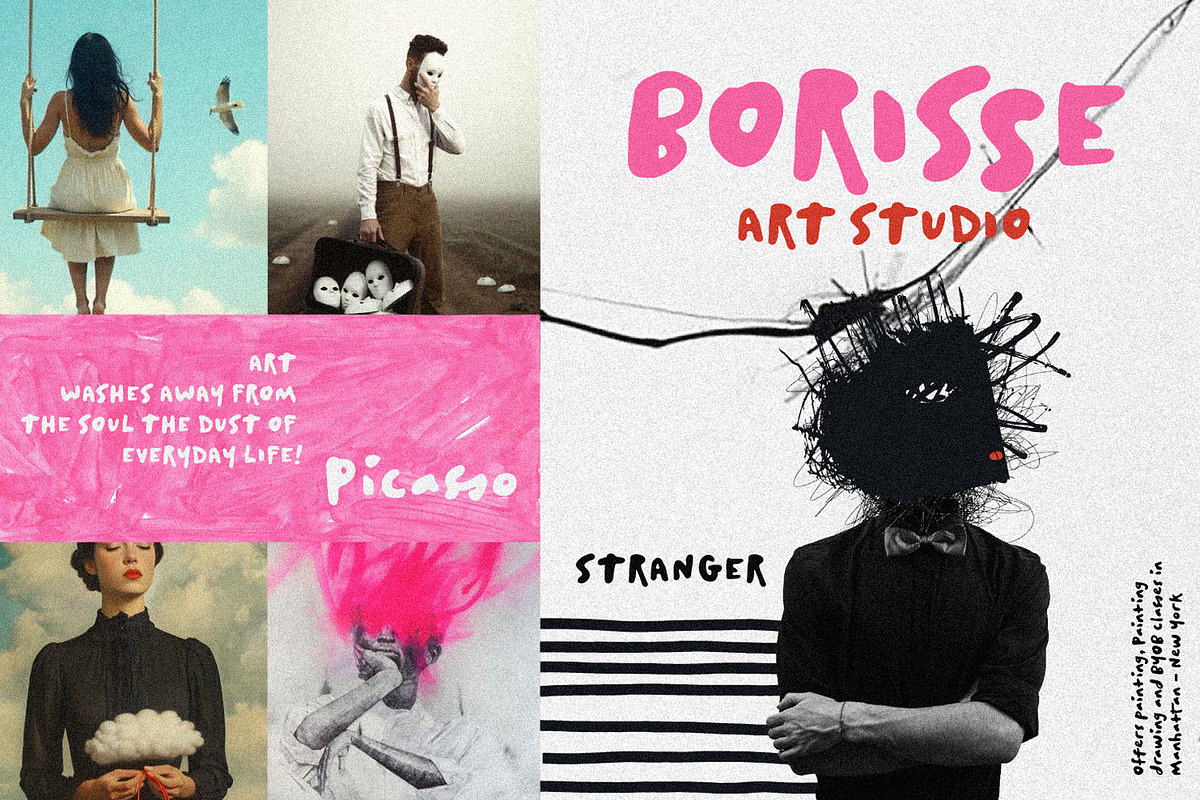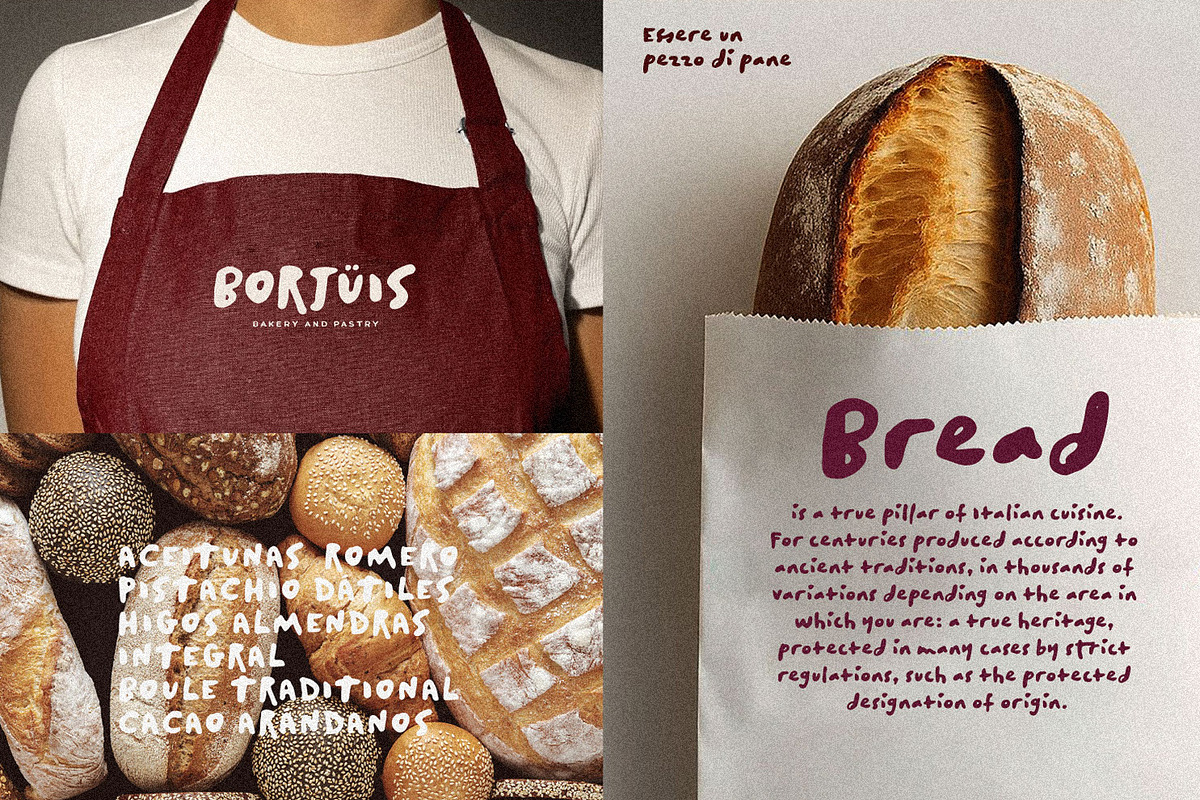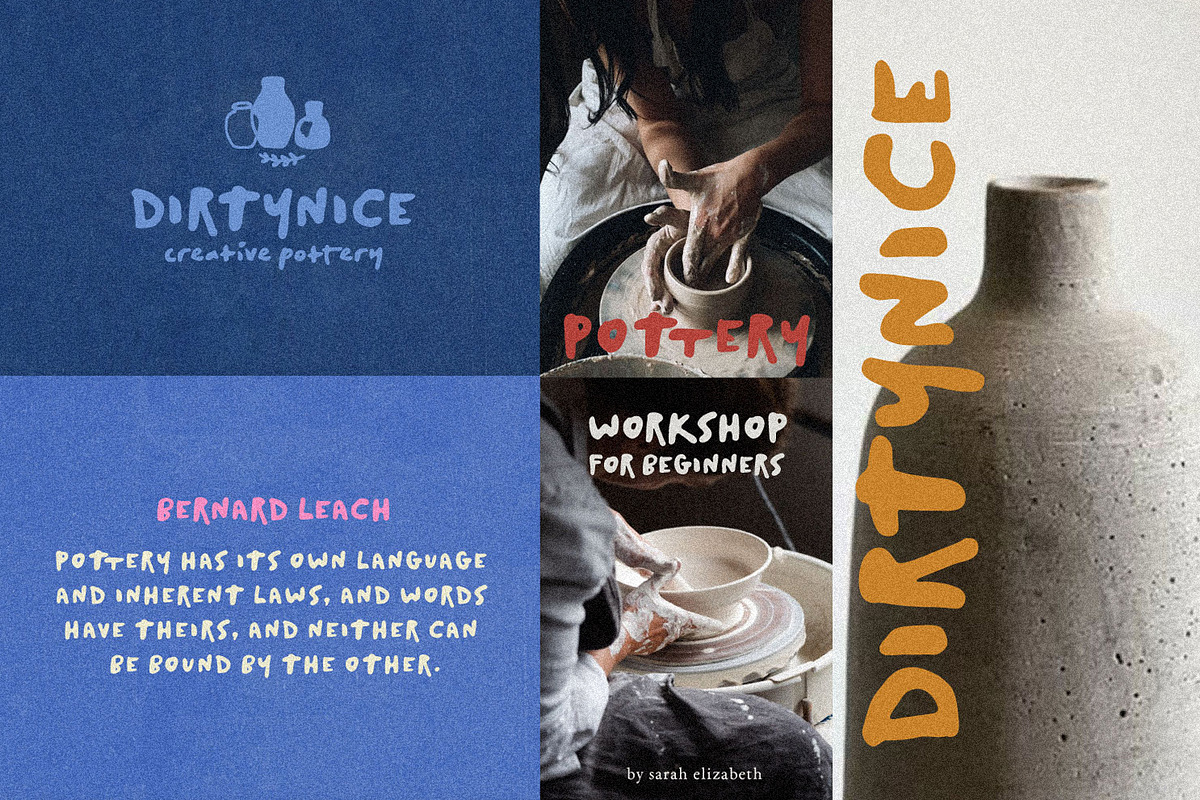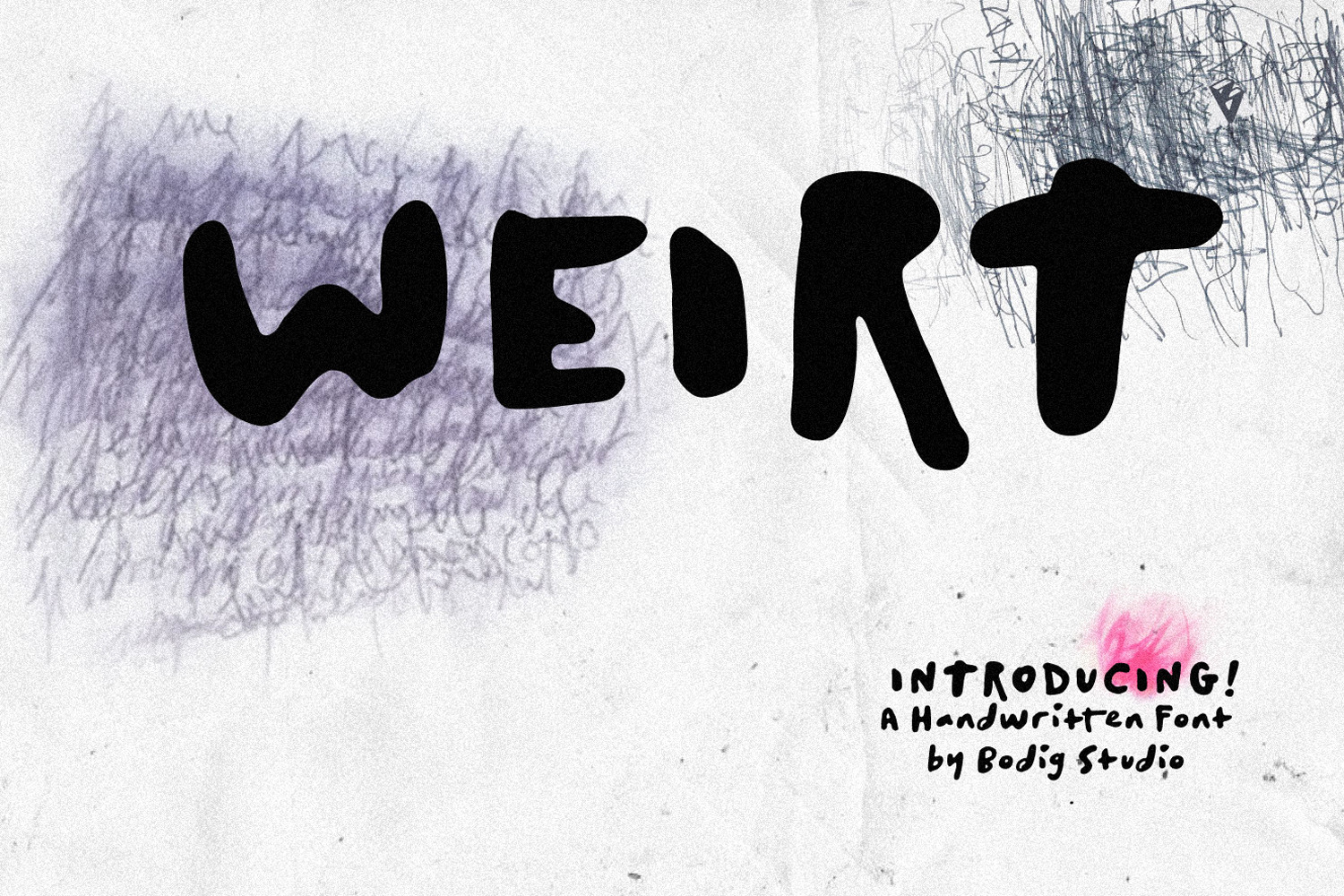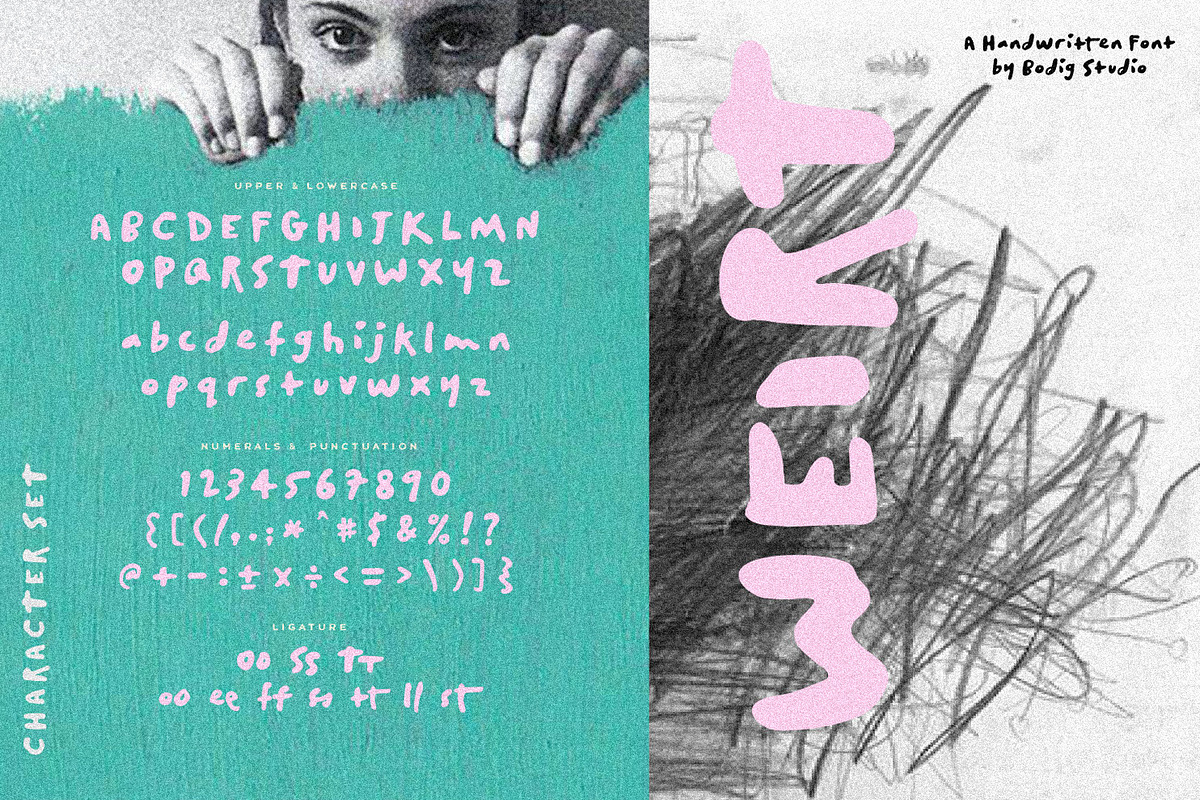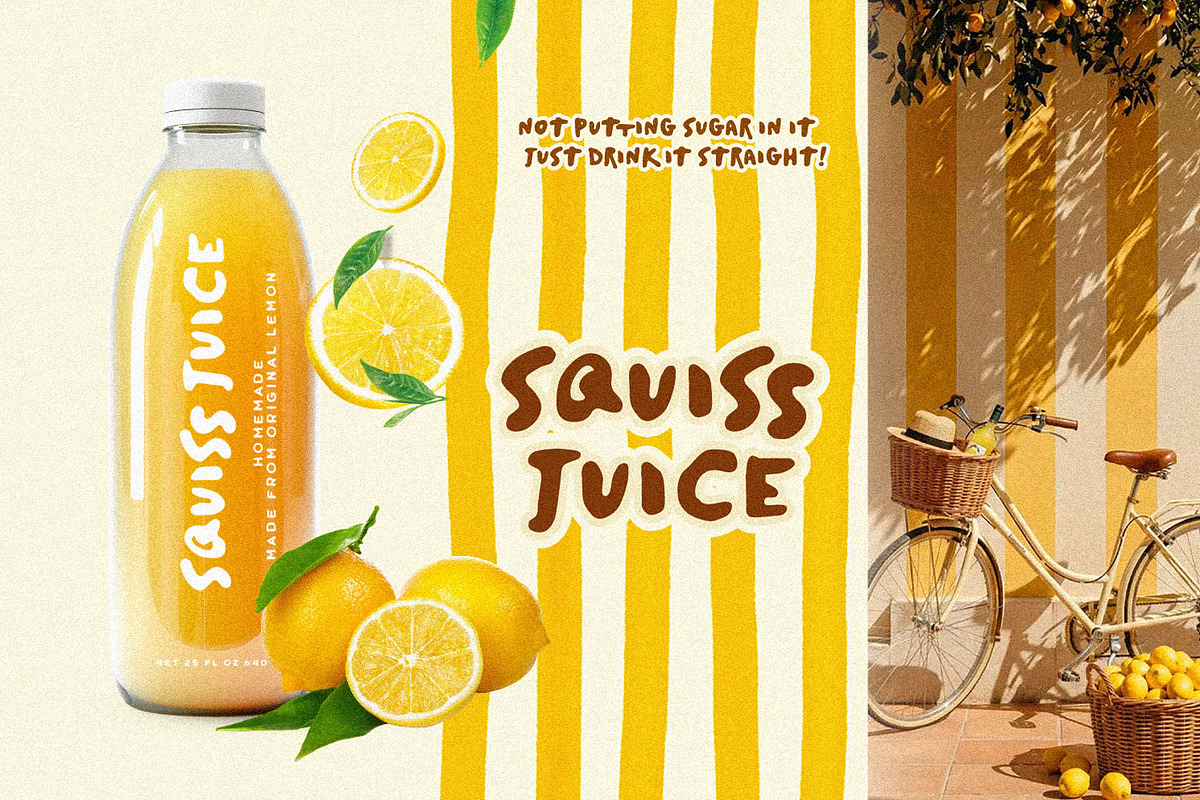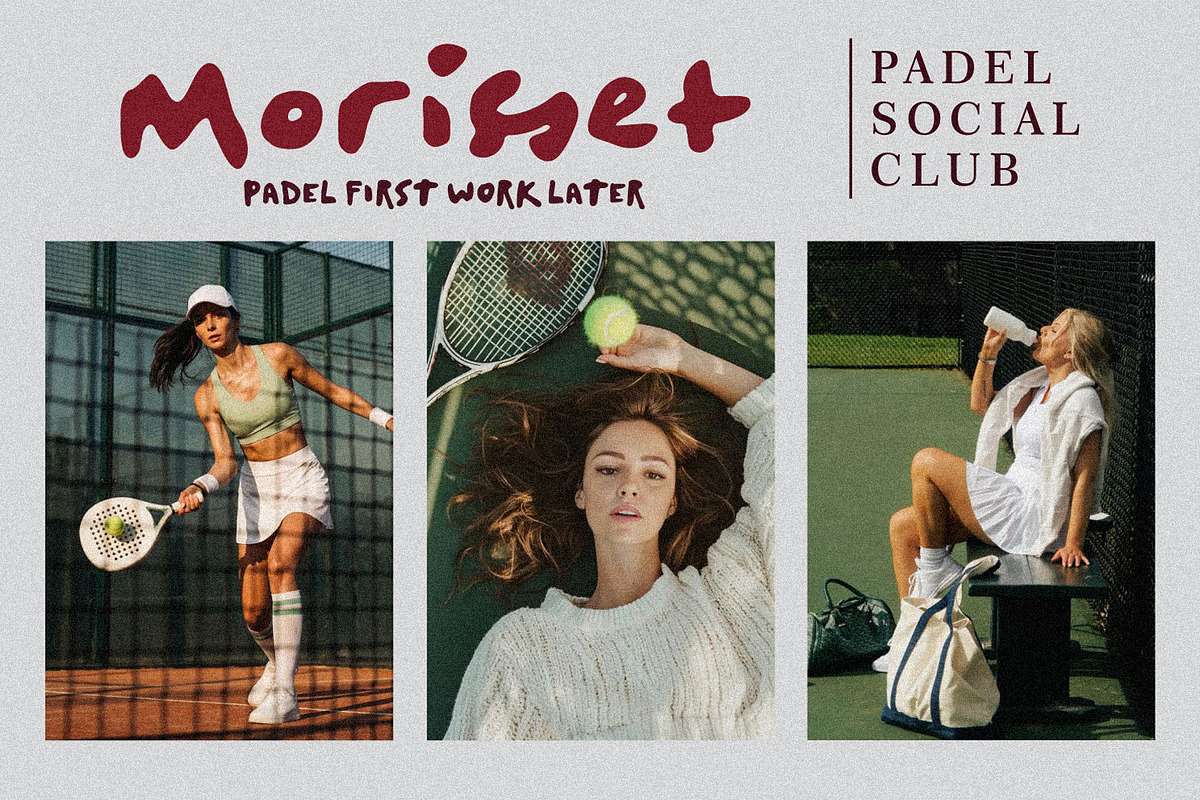
Weirt Font
WEIRT is a simple, playful, unique, hand crafted, artsy handwritten font. That exudes character and creativity, brings the charm of messy doodles straight into your designs balanced and varied, this font was designed to enhance the beauty of your projects. The bold brush texture creates a natural rhythm that feels organic handwritten
- Perfect for creative projects like logos, illustrations, branding, notes, quotes, social posts, and casual graphic elements adds authenticity, warmth, and a fun handmade!